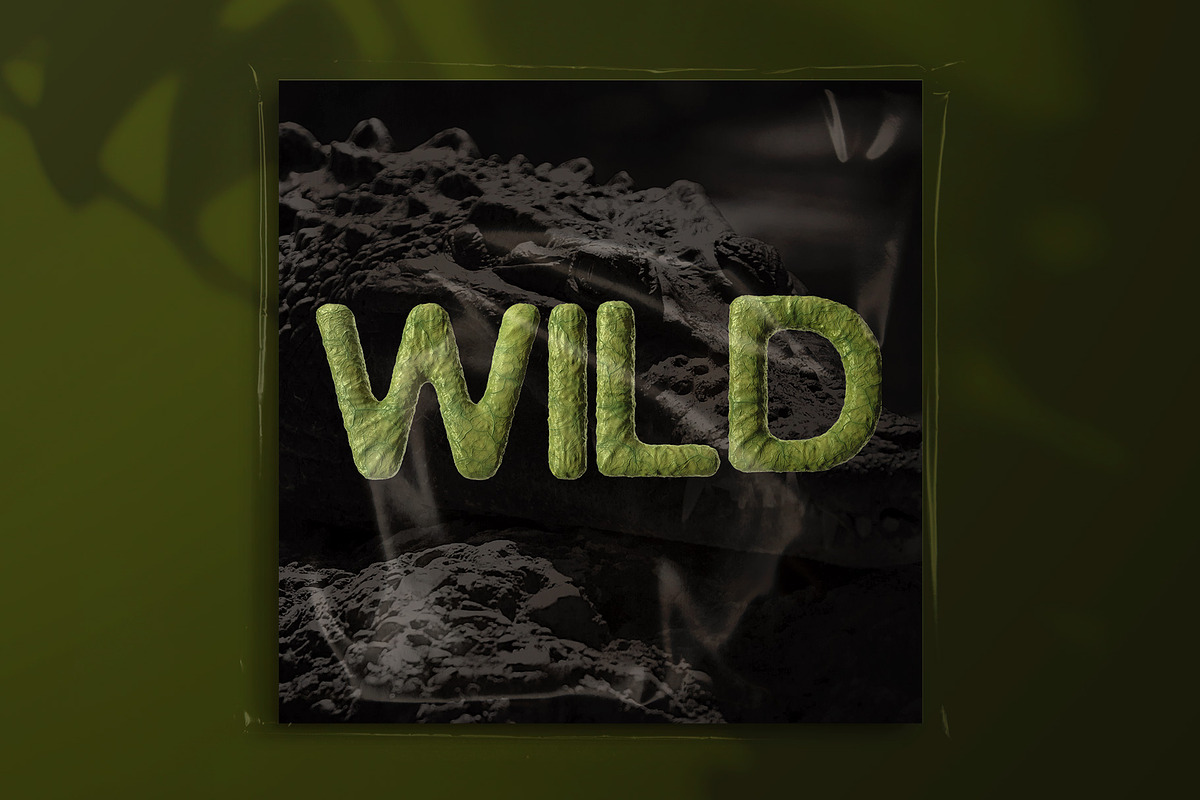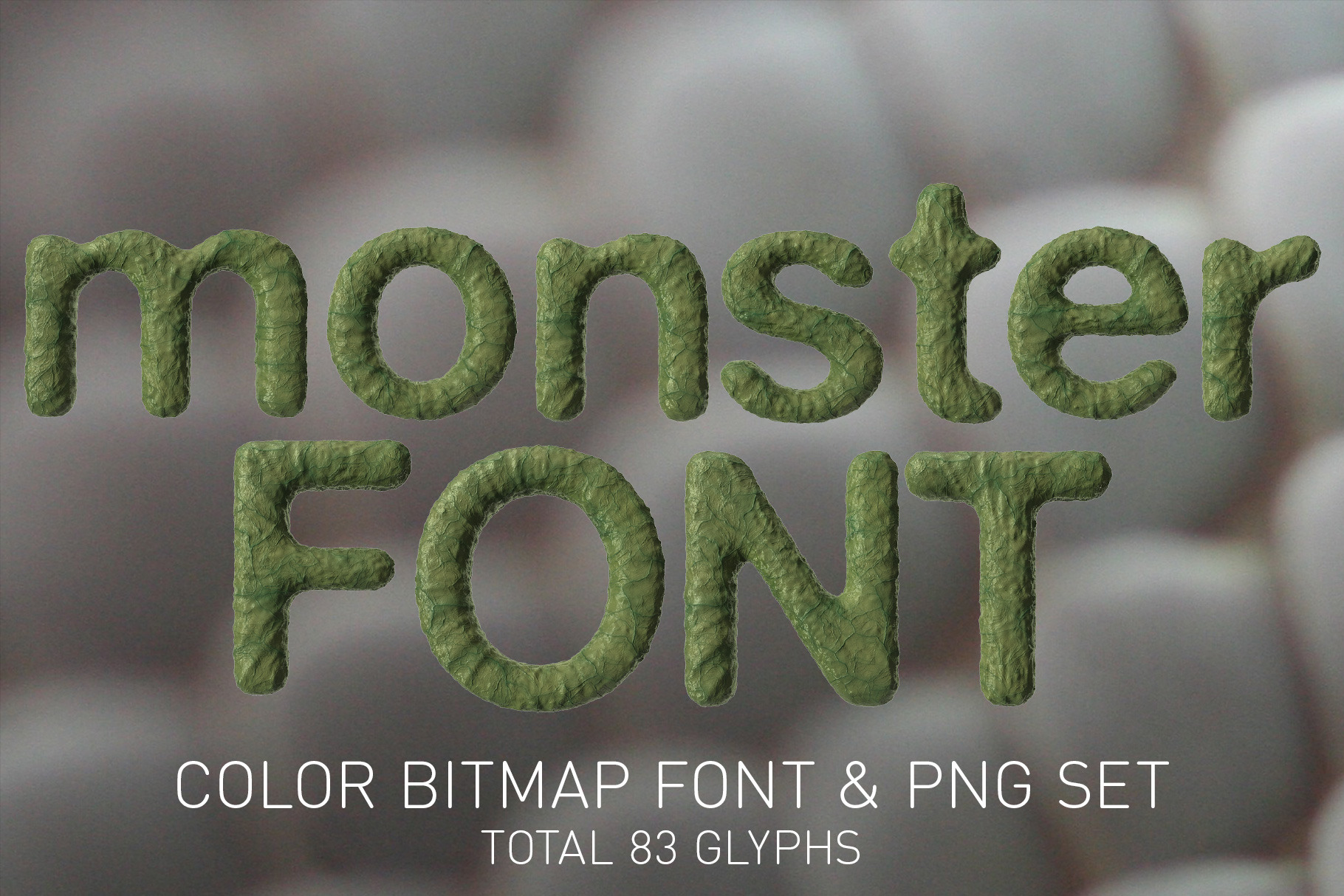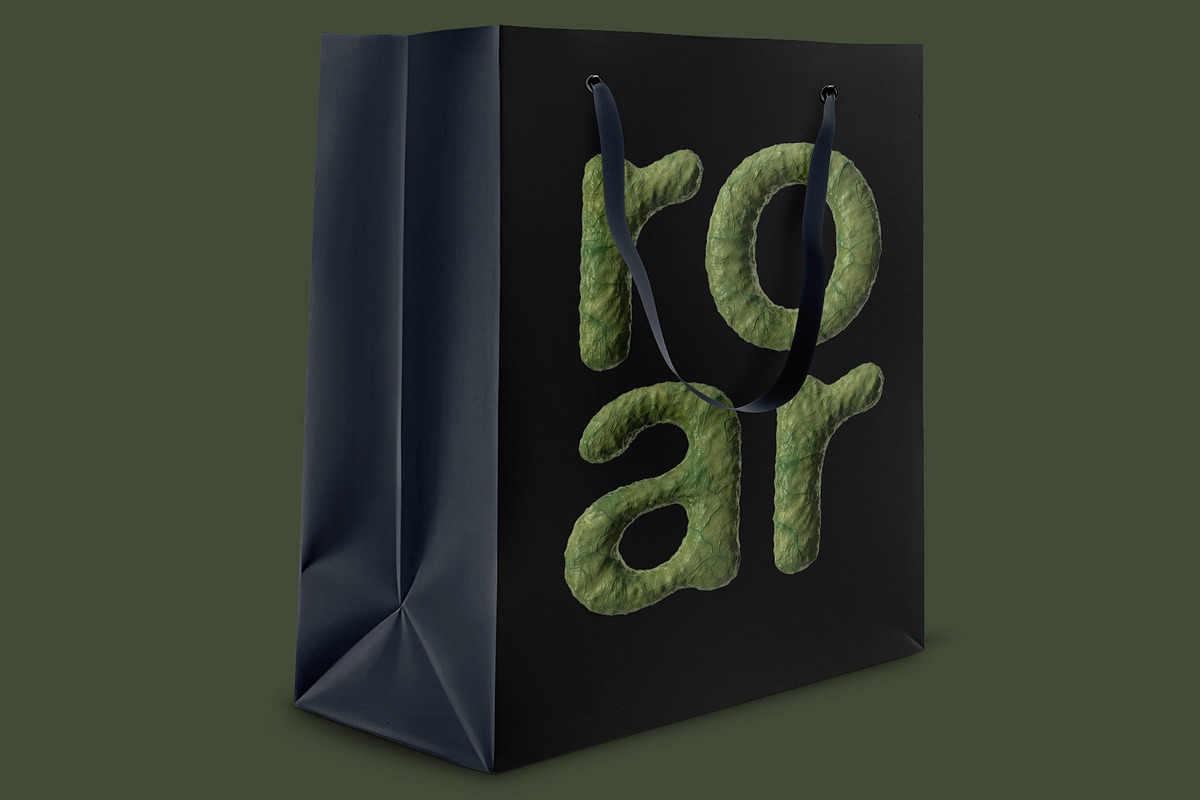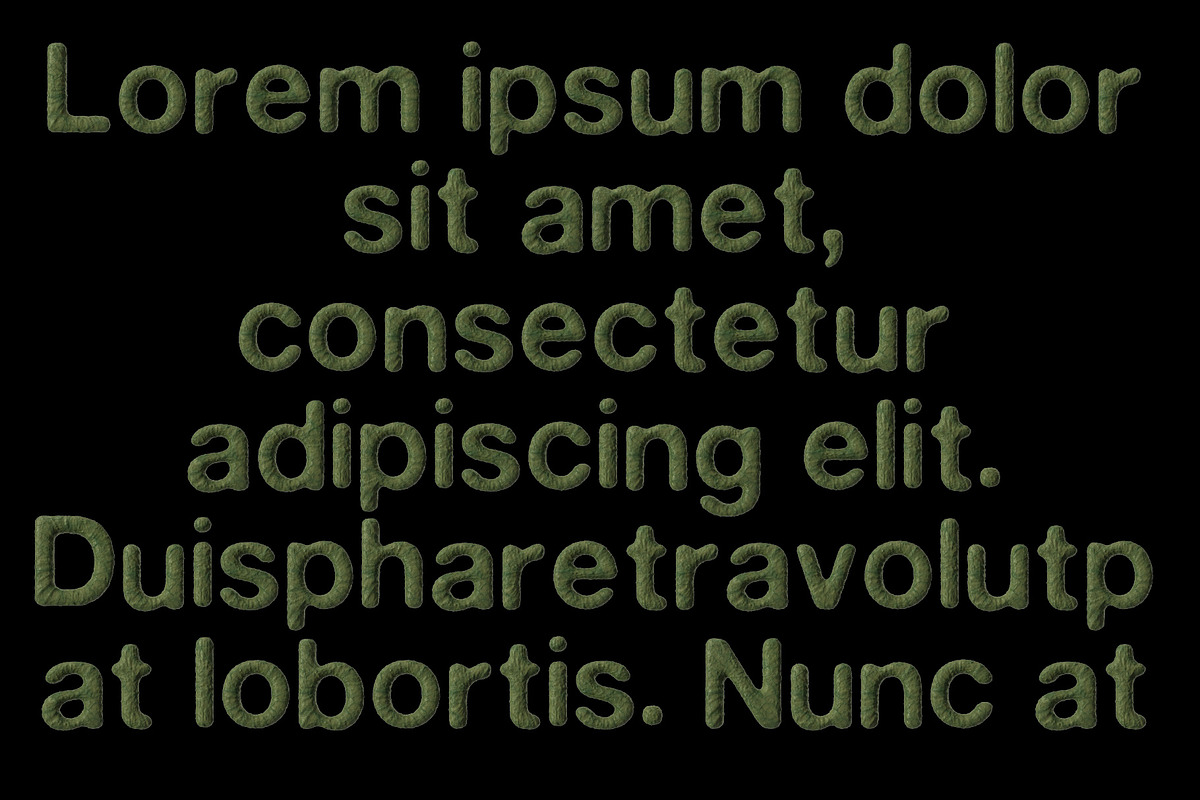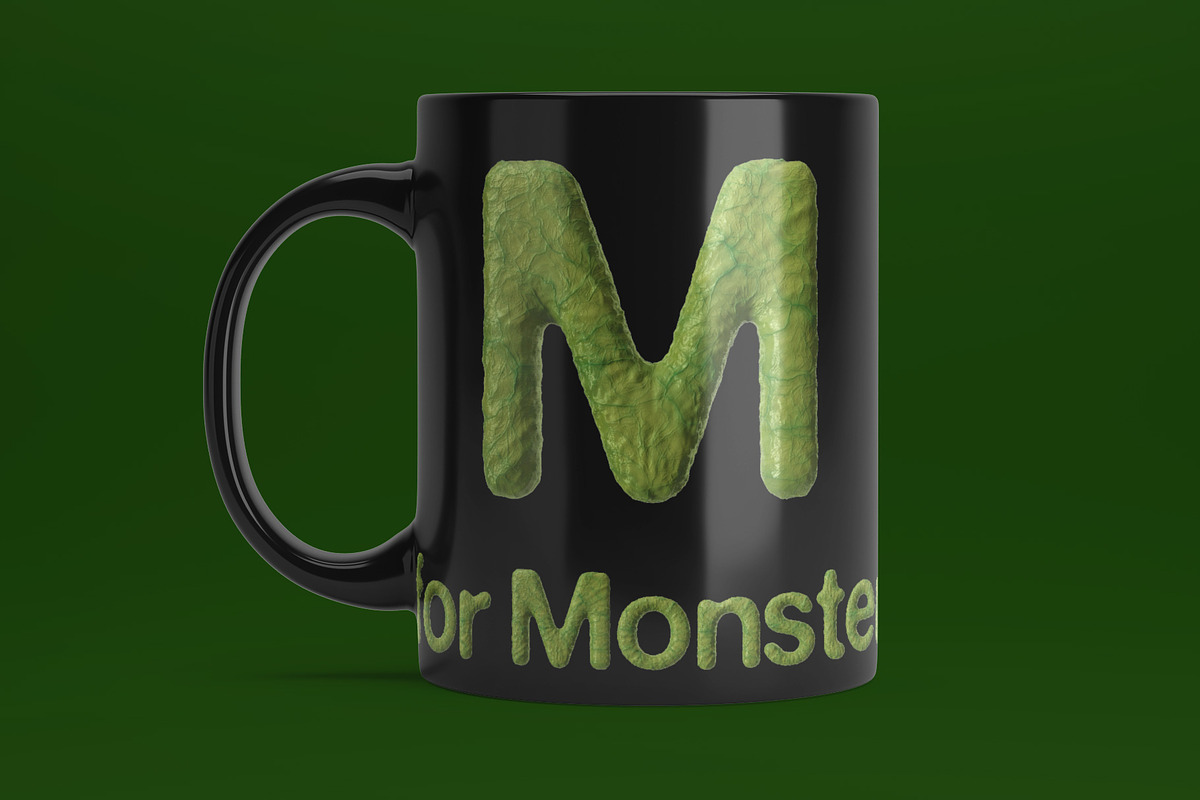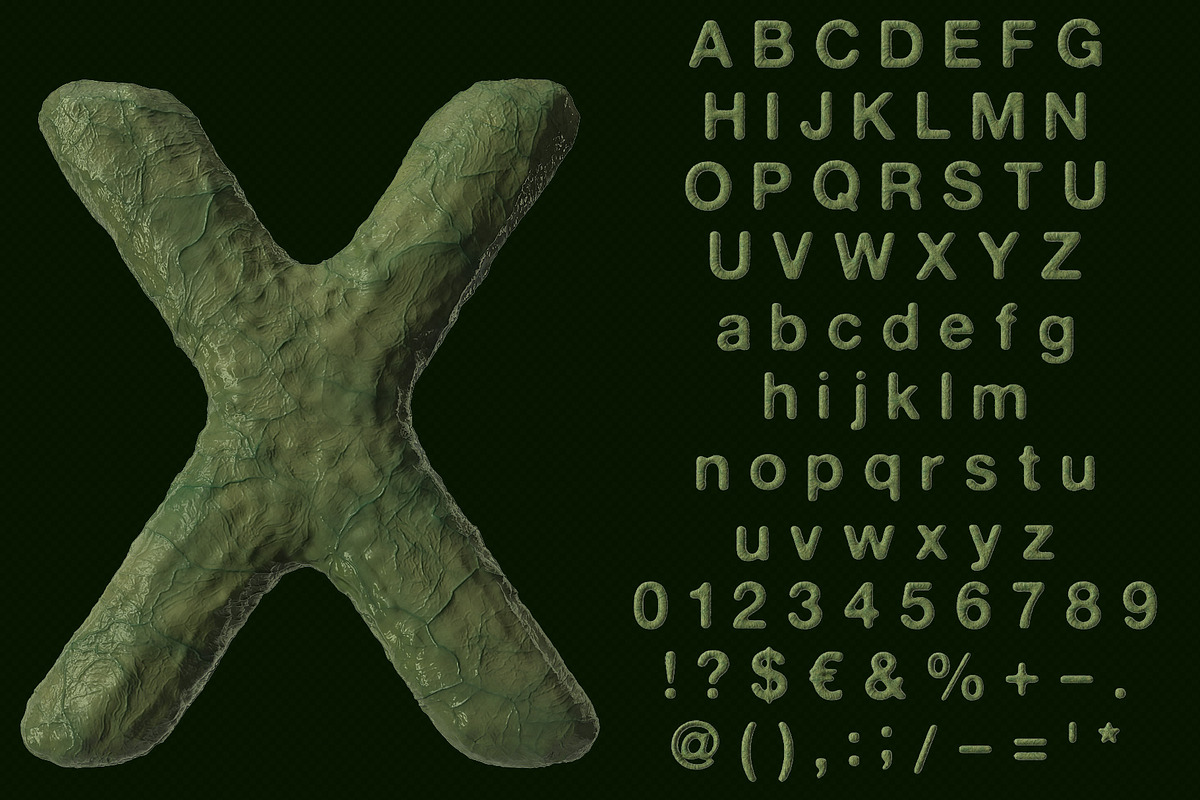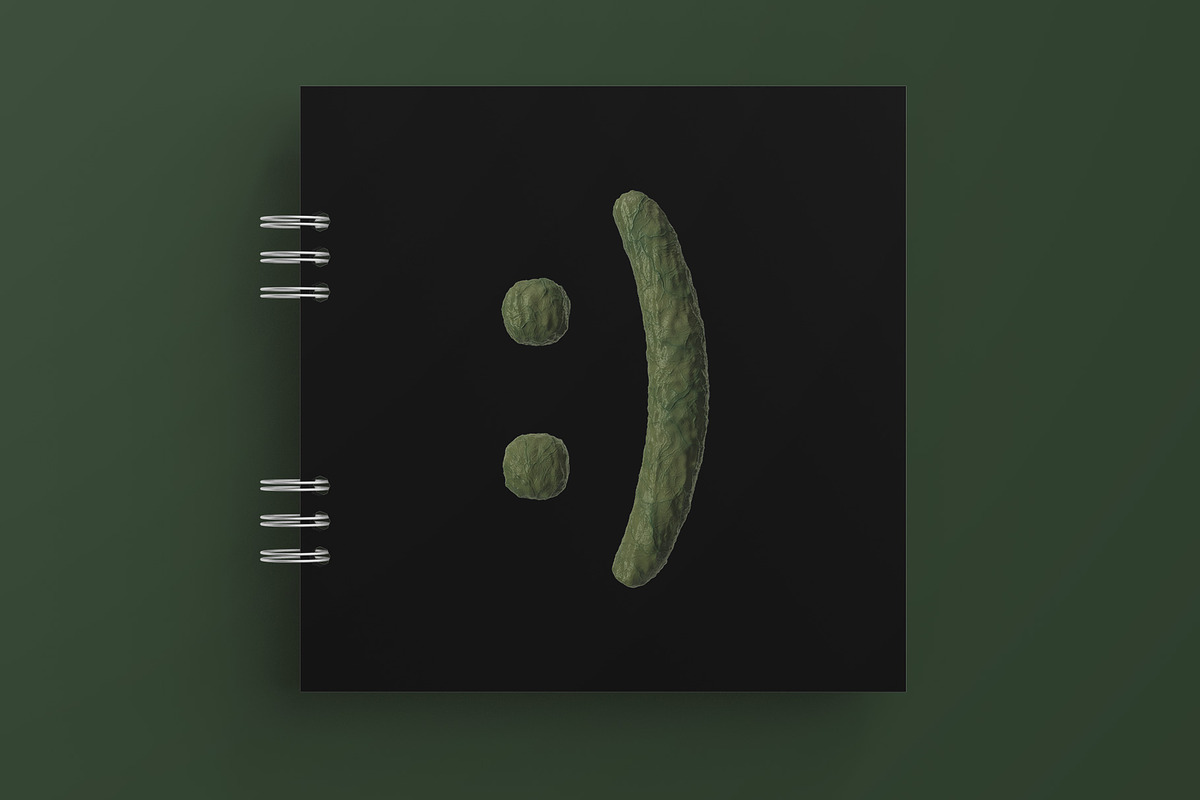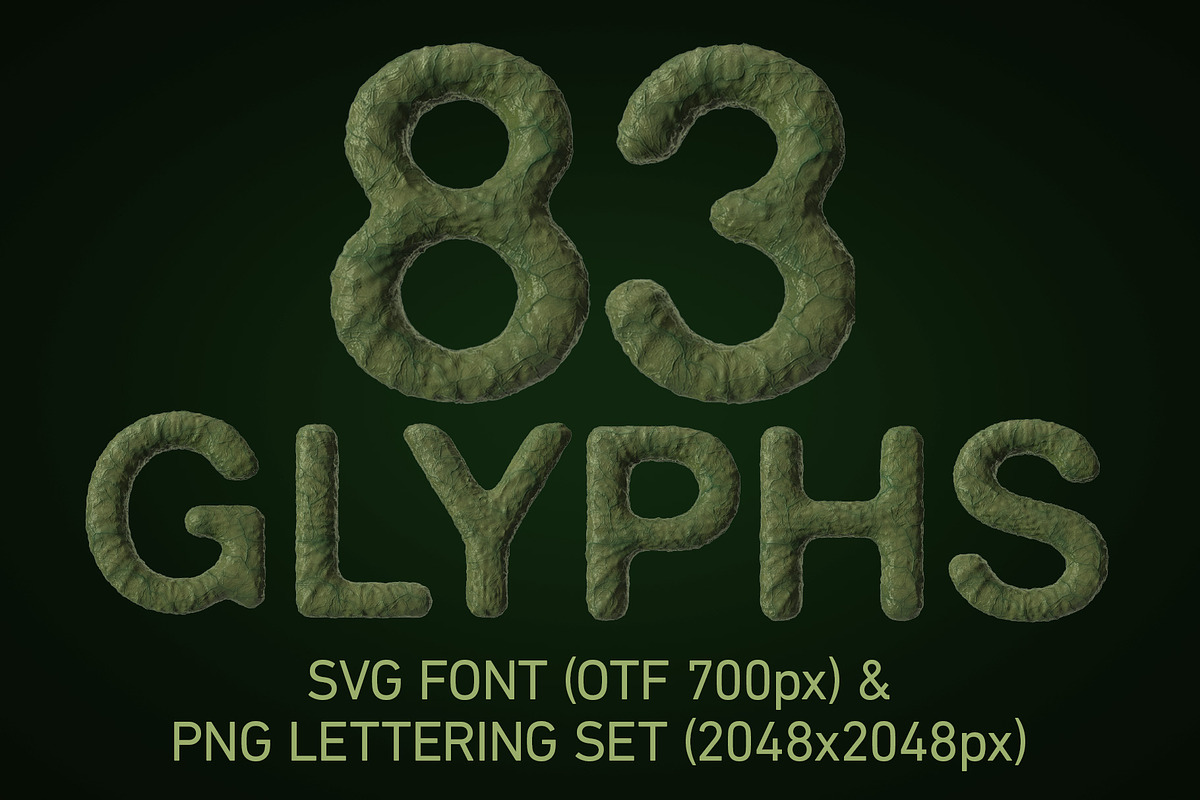
The Monster Bitmap Font & PNGs
The Monster Color Bitmap SVG Font and transparent PNGs is a one-of-a-kind design asset that will add a unique and captivating element to your projects. Featuring 83 intricately designed glyphs, each letter is made to resemble creature monster skin, complete with a shiny, wet appearance that is sure to grab attention.
Each glyph has a height of up to 700 pixels, providing a highly detailed and realistic look that will make your designs stand out. Every glyph has been meticulously crafted using 3D software, ensuring that each one is of the highest quality.
With its monster skin design, this font is perfect for creating unique and eye-catching graphics for websites, logos, or any other design project. Whether you're working on a digital design or a print project, the Monster Color Bitmap SVG Font and transparent PNGs will add a touch of creativity and originality to your work.